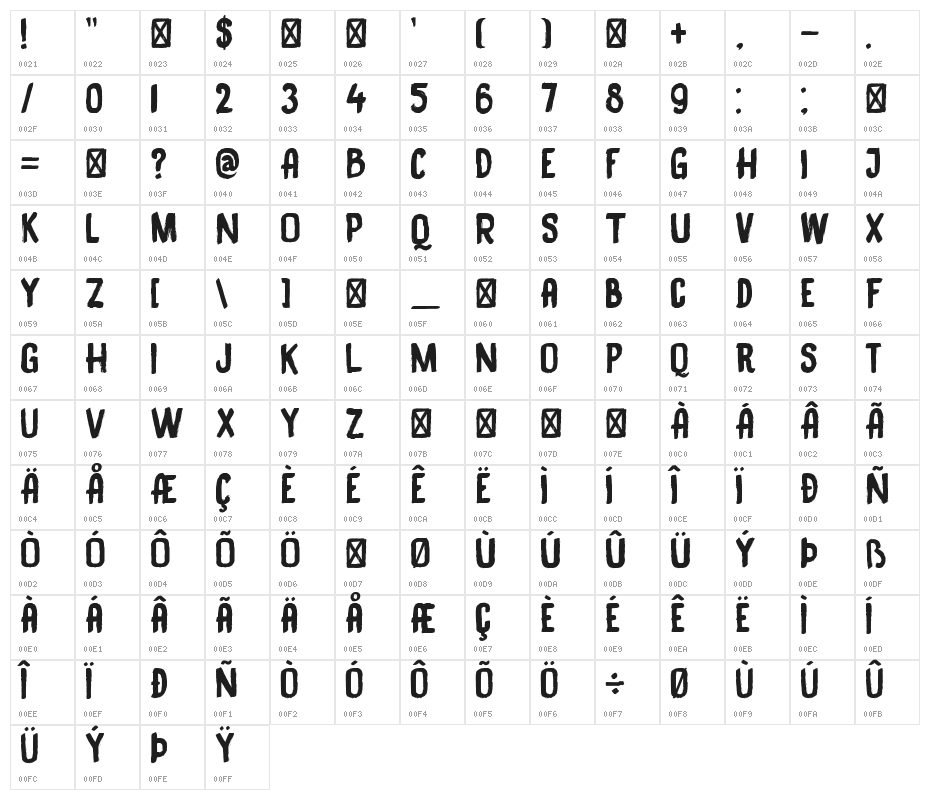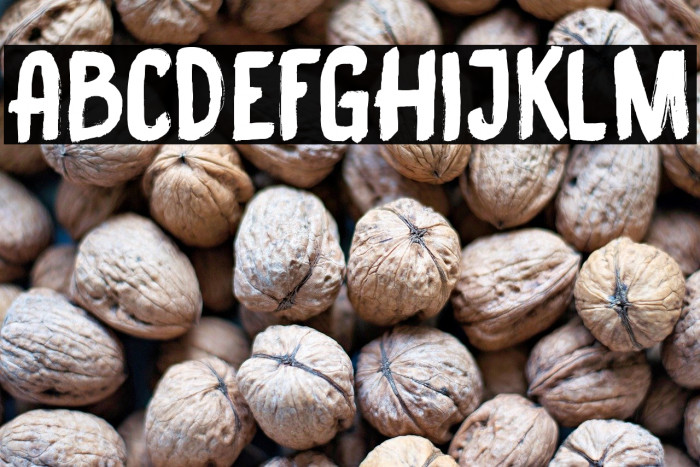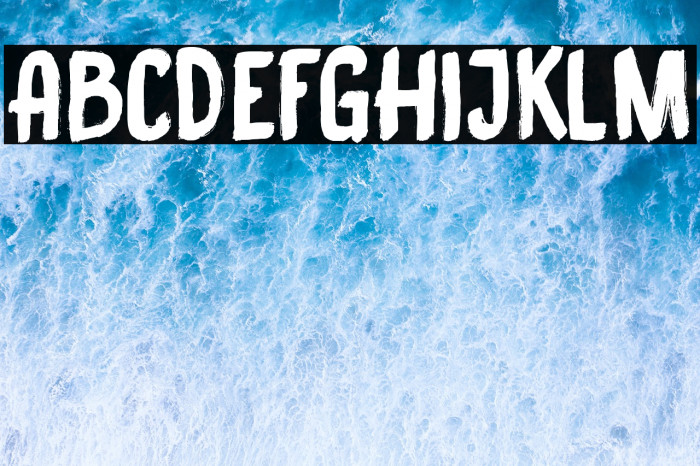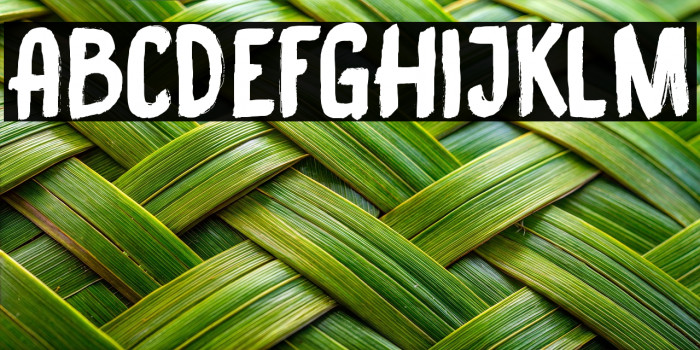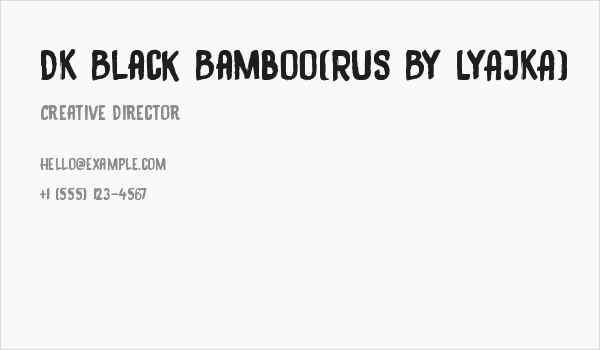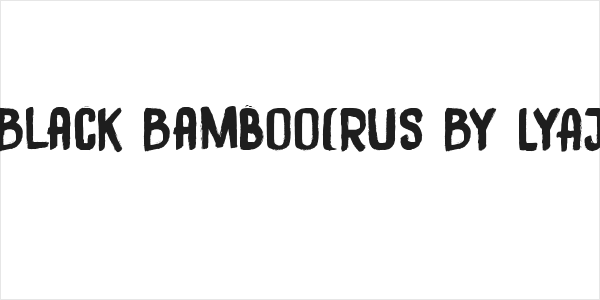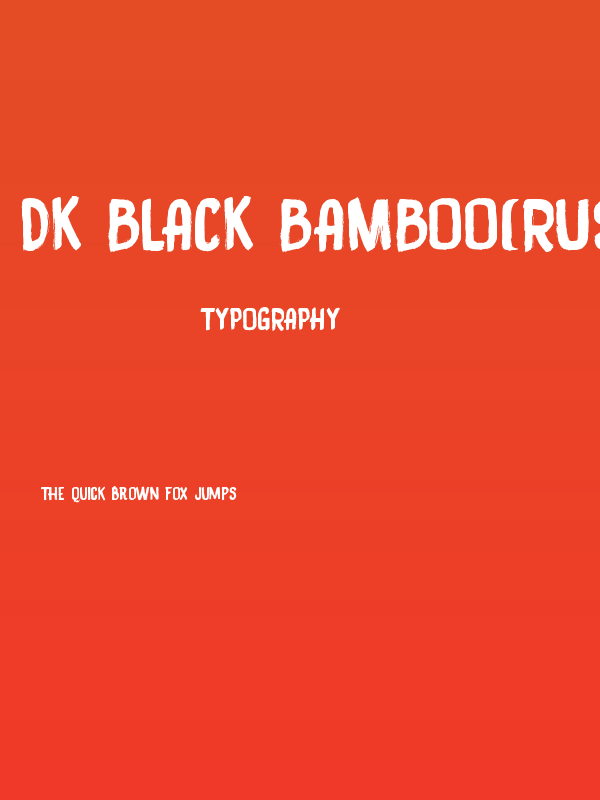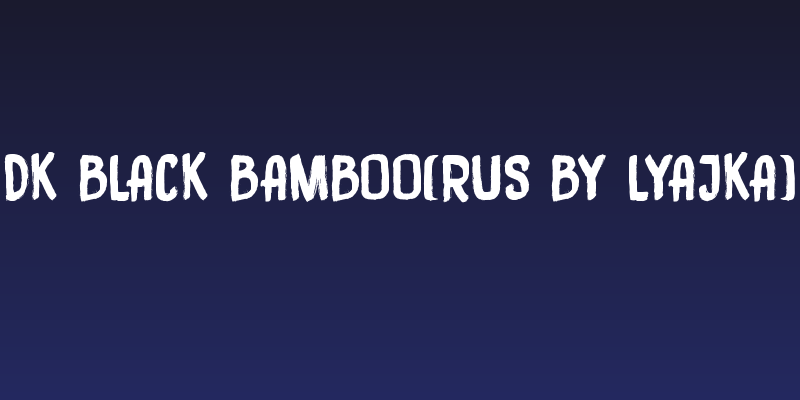
DK Black Bamboo(RUS BY LYAJKA) Font
DK Black Bamboo(RUS BY LYAJKA) Description
This font features a bold, brushstroke style that exudes a sense of raw energy and artistic flair. The characters are crafted with thick strokes, giving them a substantial presence on the page. The edges are slightly rough, adding to the hand-painted aesthetic. This style is reminiscent of traditional calligraphy but with a modern twist, making it suitable for contemporary designs. The uppercase and lowercase letters maintain a consistent weight, and the numbers are equally bold, ensuring readability. Special characters are included, matching the overall style with a cohesive look.